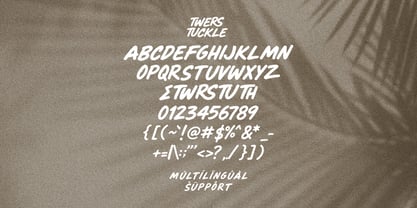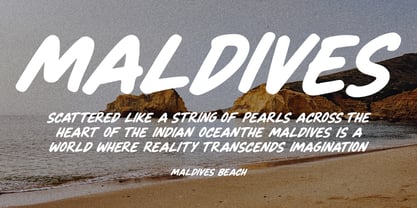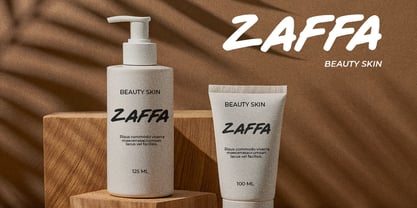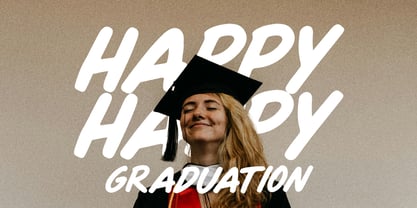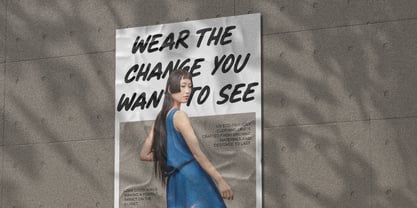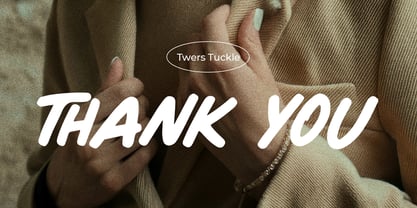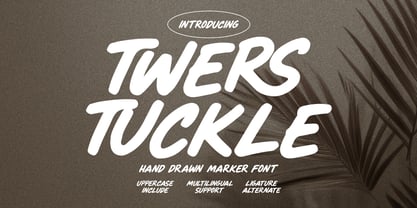
Twers Tuckle
by Maulana Creative
The Twers Tuckle Font Family was designed by Gilang Maulana and published by Maulana Creative. Twers Tuckle contains 1 styles. More about this family
Twers Tuckle is a vibrant hand-drawn marker font designed to bring energy, authenticity, and a bold modern touch to creative designs. Featuring expressive strokes and a natural handwritten feel, this typeface captures the raw beauty of quick marker sketches while maintaining smooth legibility across various digital media. Complete with uppercase characters, numerals, punctuation, ligatures, and alternates, it offers versatile styling options for high-impact visual communication.
Ideal for striking product packaging, dynamic social media graphics, quote layouts, poster designs, and modern brand identities, this font adds an energetic human touch to any project. Its extensive multilingual support ensures seamless global adaptability, making it a powerful typography tool for designers seeking an organic, confident, and stylish aesthetic.
Designers: Gilang Maulana
Foundry: Maulana Creative